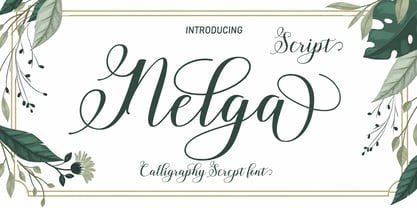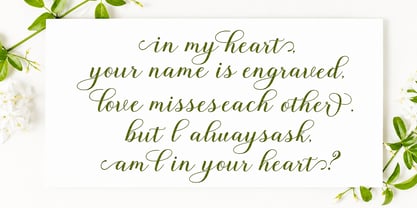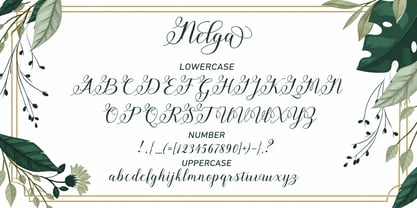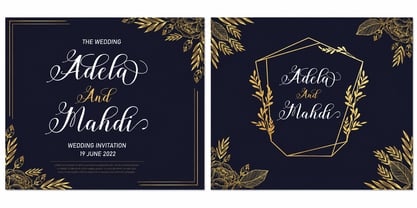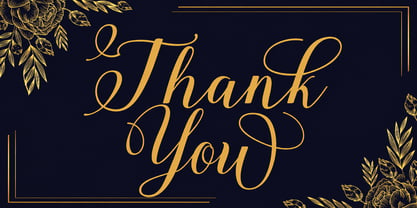
Nelga
La famille de polices Nelga a été conçue par Muhammad Abbas et publiée par Abbastype. Nelga contient 48 styles et options de package familial. En savoir plus sur cette famille
A stunning modern script font featuring elegant flowing strokes and smooth curves, exuding a stylish handwritten character. Its sophisticated yet natural appearance makes it ideal for a variety of applications, including logos, branding, wedding invitations, social media designs, quotes, packaging, stationery, and other creative projects. This font is designed to infuse a touch of elegance and personality into every design, seamlessly blending contemporary style with the timeless charm of handwritten lettering.